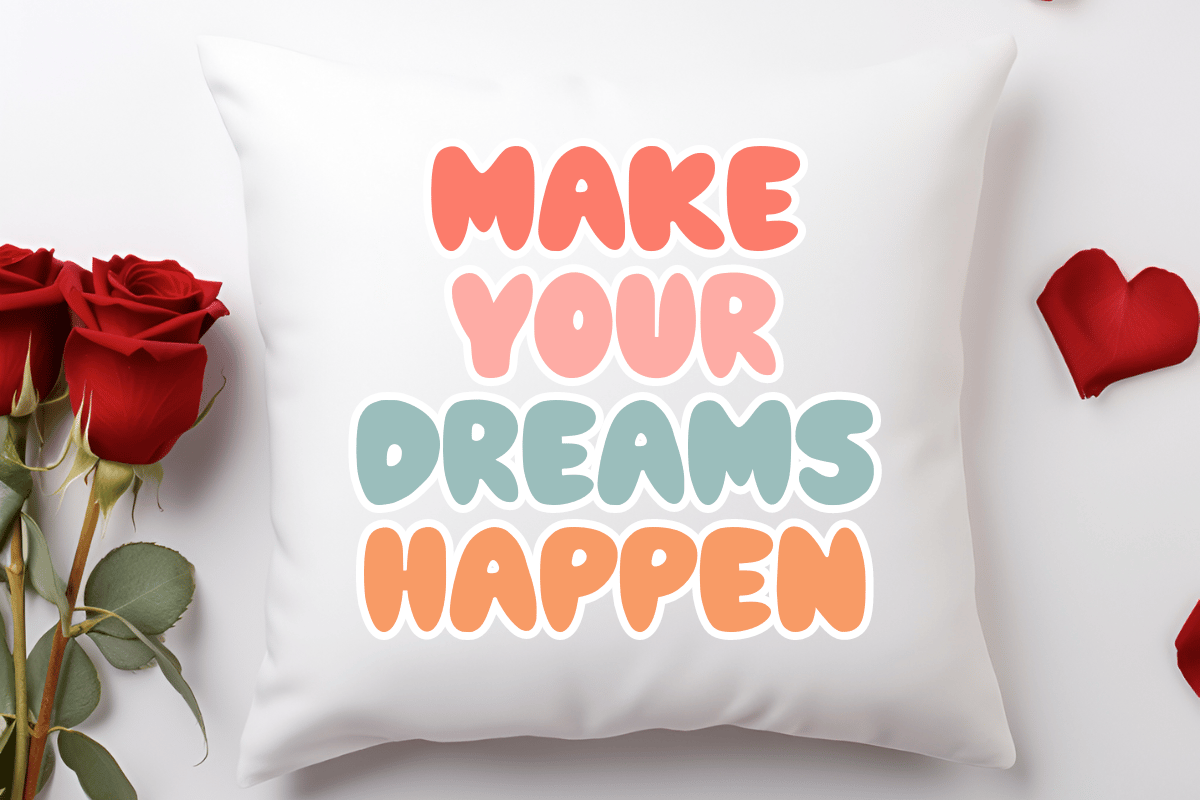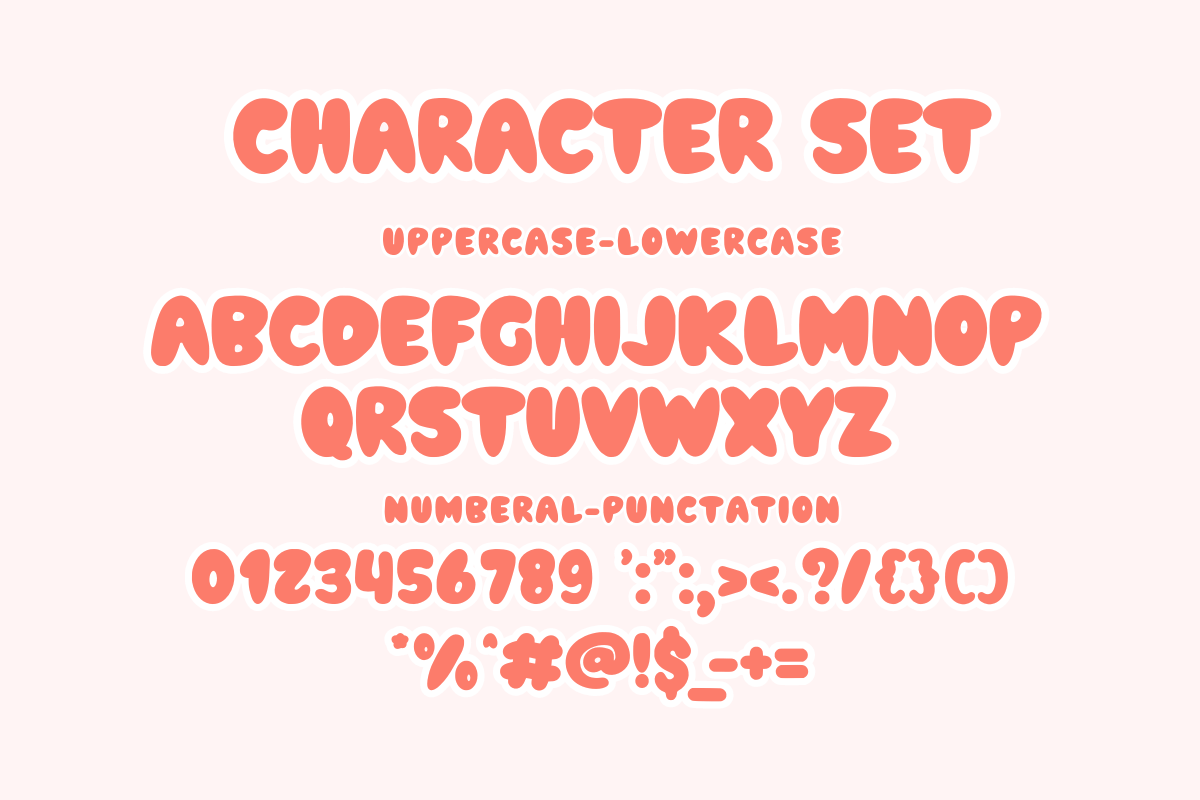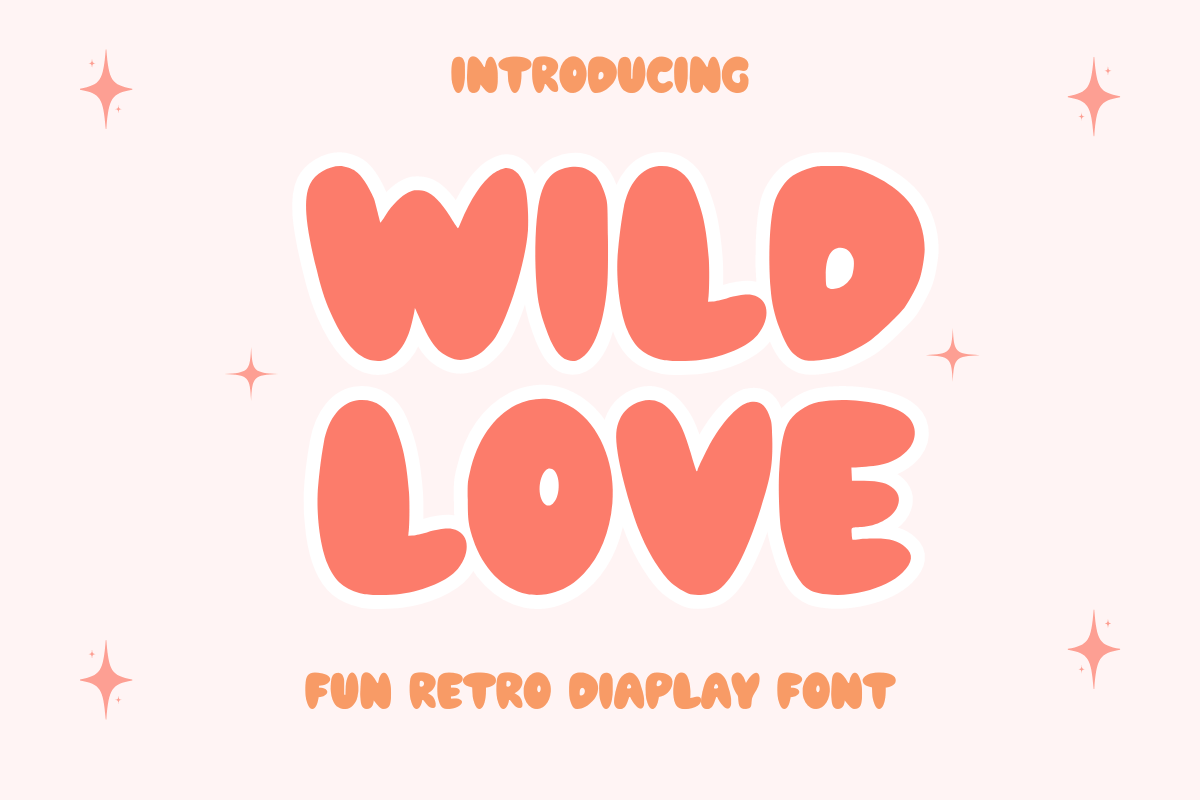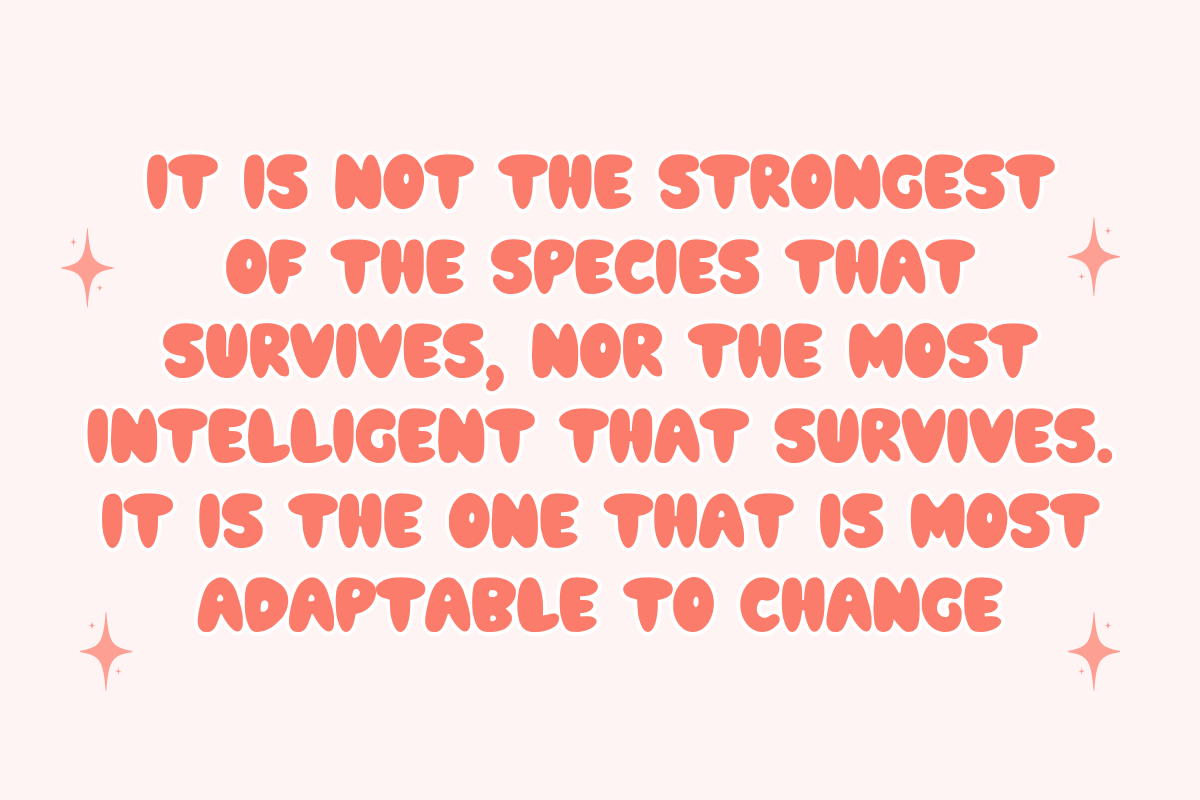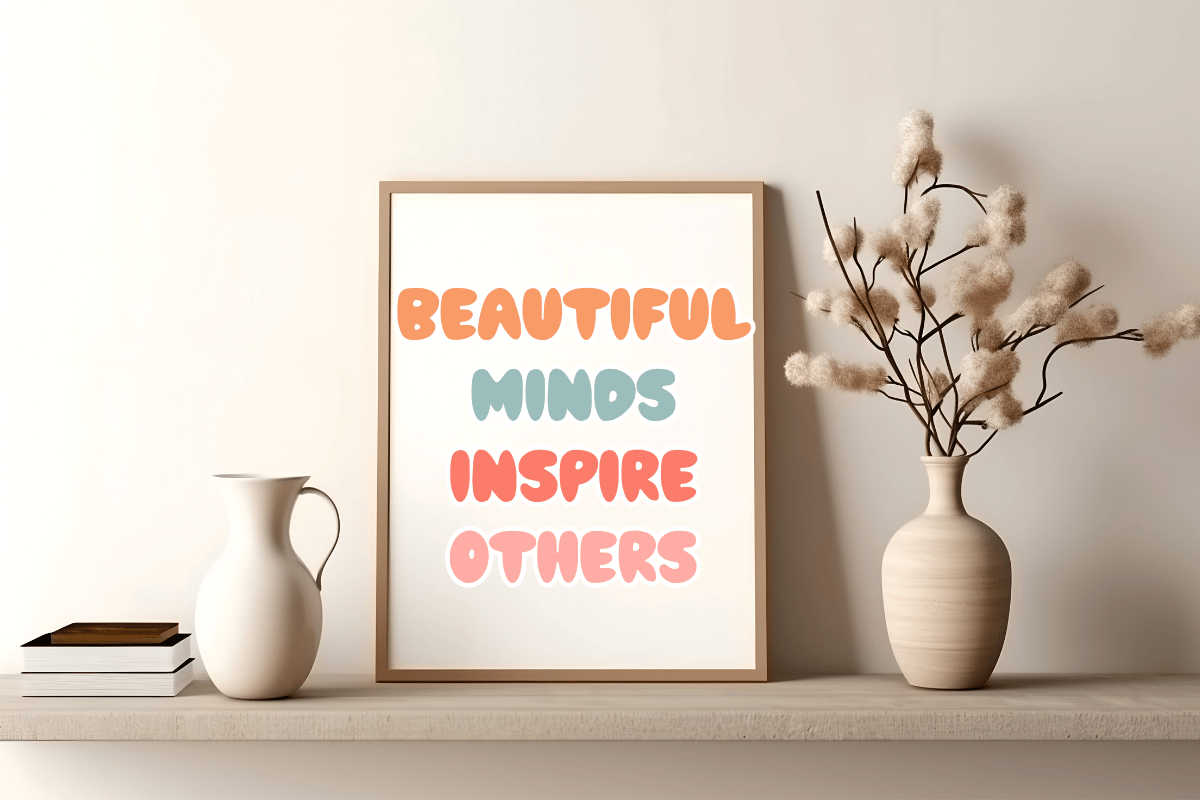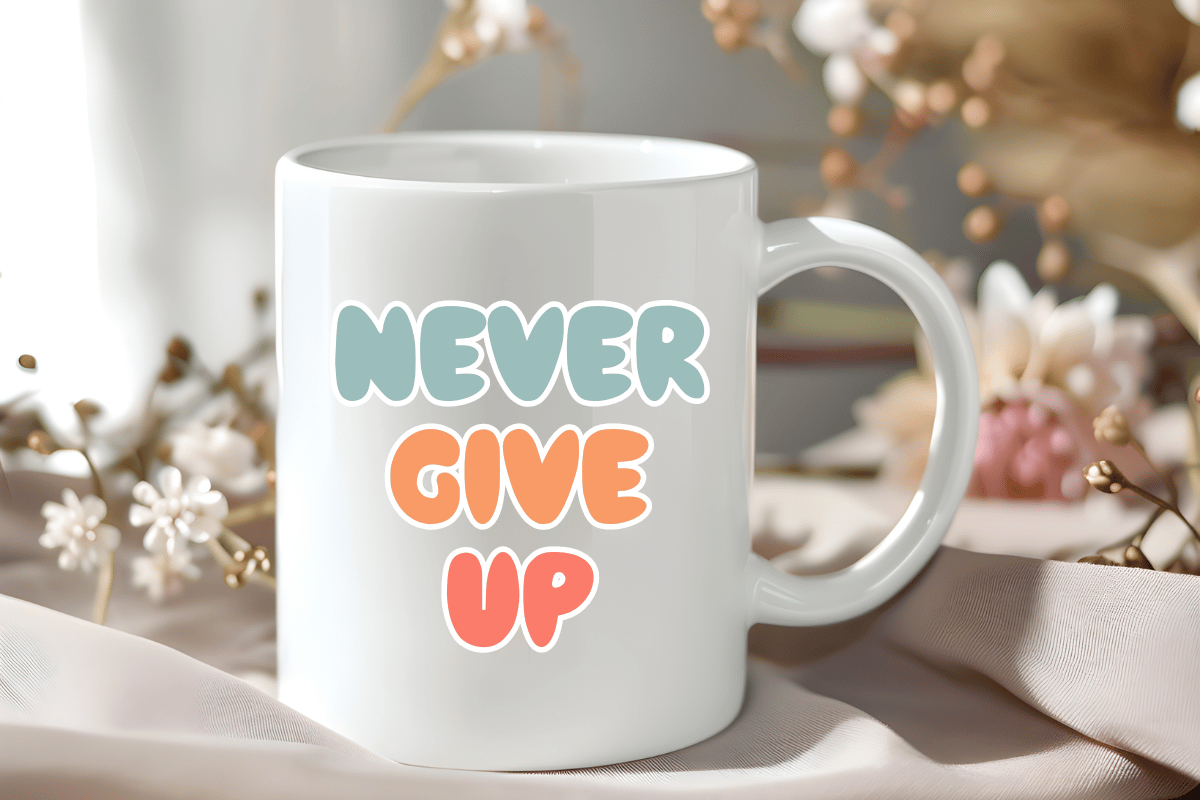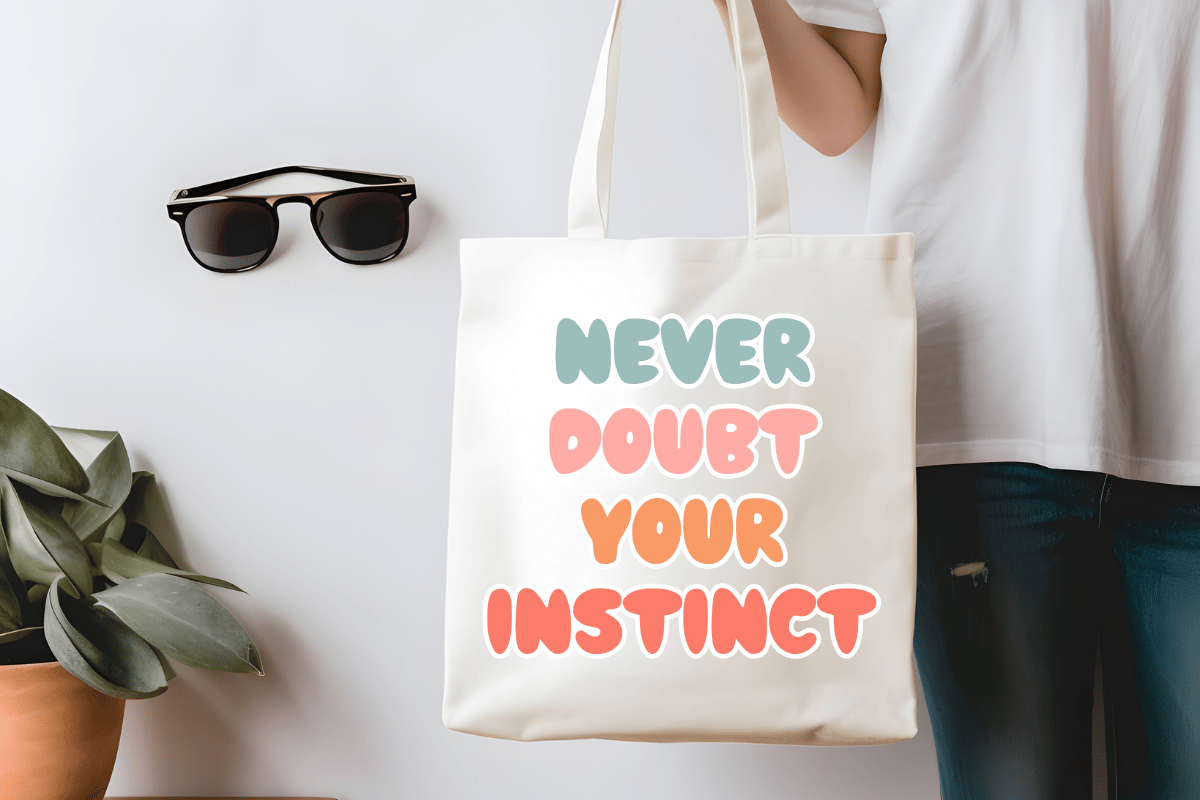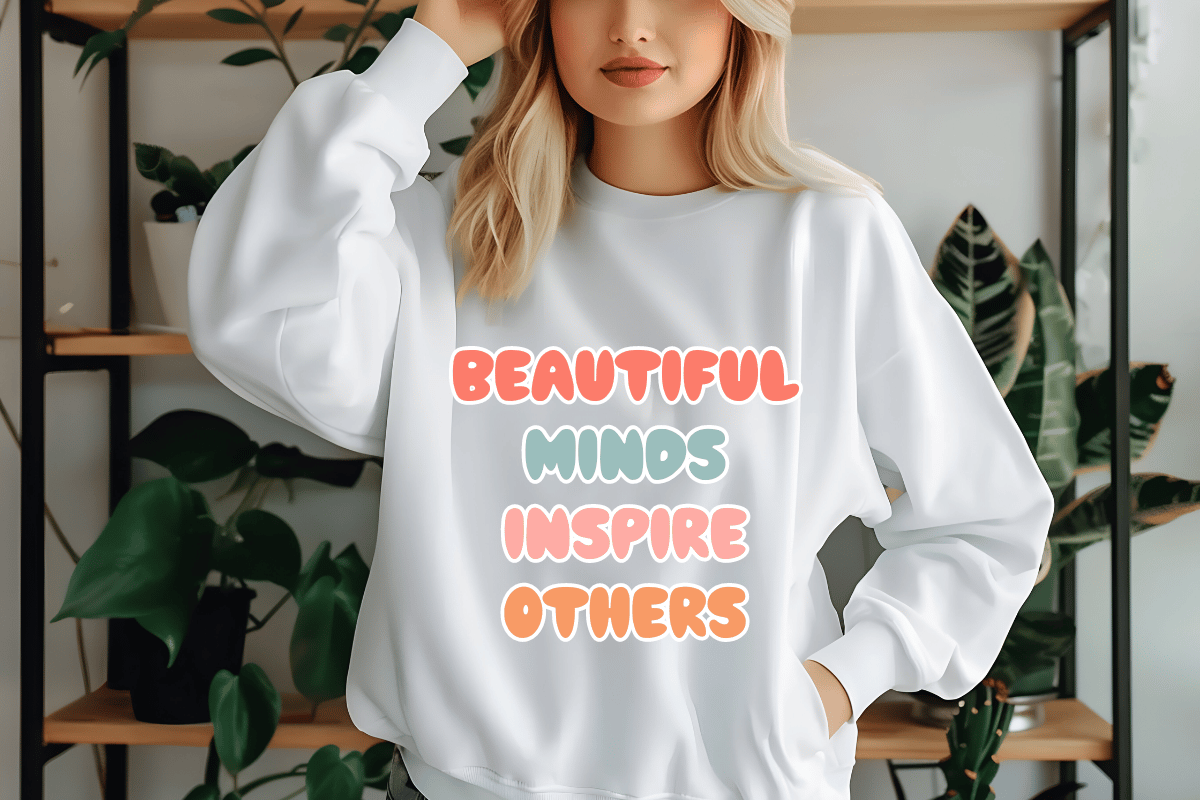
Wild Love - Playful Retro Bubble Font for Cricut and Sublimation
Adorable Playful Bubble Display Font for Cricut and Sublimation
Wild Love is a fun retro display font inspired by the playful, bubbly aesthetics of the 1970s and the energetic "Y2K" revival style. With its thick, rounded curves and carefree bouncy rhythm, this typeface is designed to bring a sense of joy and nostalgia to any creative project. Its clean outlines make it an absolute dream for creators who need high-quality results for vinyl cutting and professional printing.
Perfect for: creating vibrant SVG cut files, custom t-shirt graphics, adorable stickers, sublimation mugs, nursery wall art, social media quotes, playful branding, tote bags, and personalized gift tags. It is a fantastic choice for anyone looking to make their Print on Demand (POD) products stand out in a crowded marketplace.
Great for holiday themes such as Valentine's Day, Mother's Day, Birthdays, and Summer festivities, adding a sweet and spirited touch to all your seasonal DIY crafts!